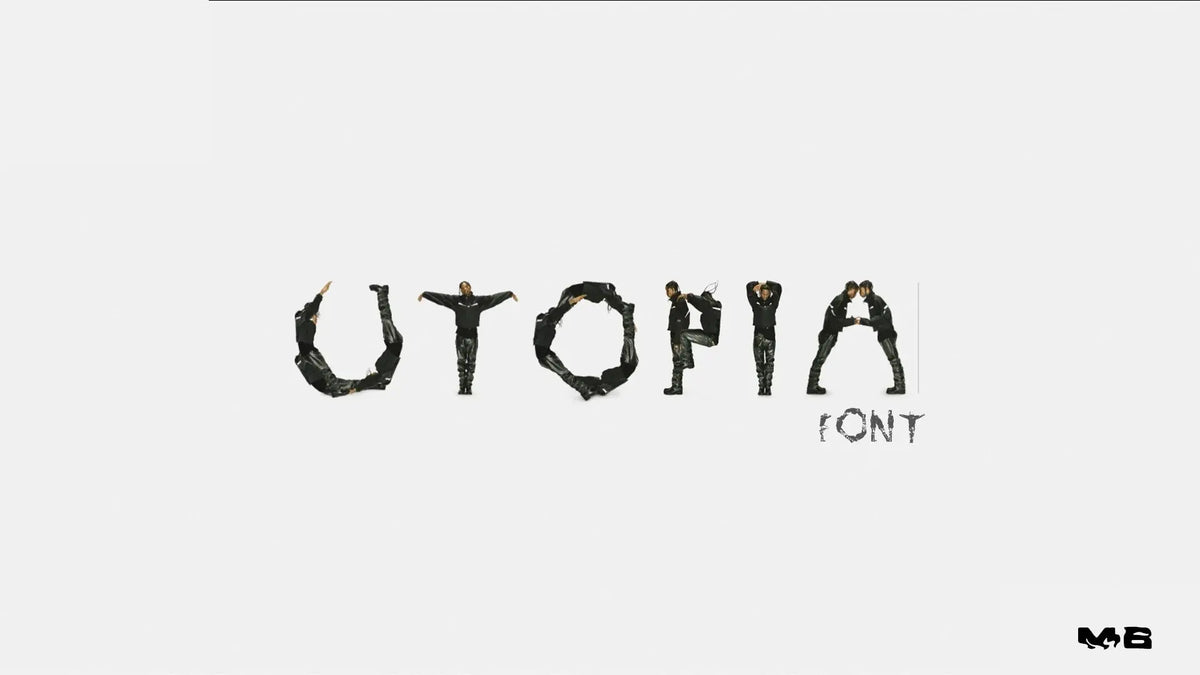
Utopia Font: The Ultimate Recreation of Travis Scott’s Iconic Typeface
Summary
The Utopia Font is a high-quality recreation of the Travis Scott Utopia Typeface from his collaboration with Pin-Up Magazine. Available exclusively on MoonBear.shop, this typeface captures the bold, futuristic, and stylish aesthetic associated with the Utopia brand. In this blog, we’ll explore the history, design elements, and best use cases for the Utopia Font, along with how you can download and use it for your creative projects.
What is the Utopia Font?
The Utopia Font is a stylish, futuristic typeface inspired by Travis Scott's Utopia branding, originally showcased in his collaboration with Pin-Up Magazine. The font embodies a mix of bold serif aesthetics with a contemporary, edgy twist, making it perfect for album art, branding, posters, and creative designs.
At MoonBear.shop, we have carefully recreated the Utopia Typeface, ensuring it maintains the same aesthetic appeal and modern typography trends that Travis Scott fans and designers love.
Travis Scott’s Influence on Typography
Travis Scott is not just a rapper and music producer—his impact on fashion, branding, and typography is undeniable.
• With every album rollout, Scott introduces a distinct visual identity, from Astroworld's carnival-inspired aesthetics to Utopia's futuristic and industrial appeal.
• The Utopia font first appeared in his Pin-Up Magazine feature, sparking interest from designers and fans alike.
• The typeface embodies boldness, sophistication, and modern design elements, making it a sought-after choice for creatives.
Recreating the Utopia Typeface
Our team at MoonBear.shop worked meticulously to reconstruct the Utopia Font from scratch, ensuring it is:
✔ Accurate to the original Travis Scott Utopia branding
✔ Optimized for both print and digital use
We have taken the time to refine every letter, character spacing, and curvature to match the bold yet elegant structure of the original font.
How to Use the Utopia Typeface in Your Designs
The Utopia Font is perfect for:
🎨 Graphic Design: Use it for logos, branding, and marketing materials.
🎵 Music & Album Art: Capture the bold style of Travis Scott’s Utopia.
📰 Editorial & Magazines: Achieve a modern, high-fashion look.
🌐 Web Design: Make your website typography stand out.
📦 Merchandise & Packaging: Elevate your product presentation with a futuristic feel.
4. How Close is This to the Original Travis Scott Font?
We have meticulously recreated the font to match the exact aesthetics of Travis Scott’s Utopia branding but with added functionality and the ability to download and use it across computers, tablets and phones!
Final Thoughts